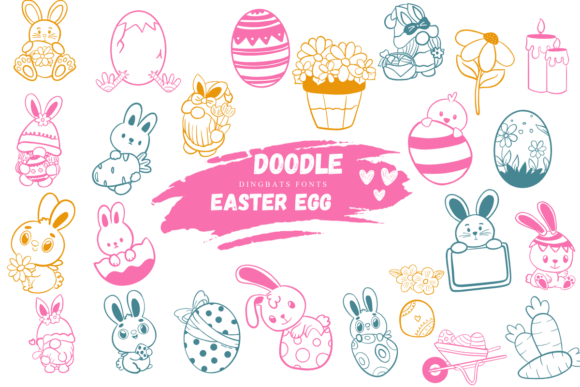
The Perfect Springboard for Your Creative Ideas
Have you ever been brainstorming a new project, surrounded by scraps of paper, paint, and glue, only to be struck by a spark of inspiration? For many creatives, this is the moment when ideas come alive. For designers, this spark often leads to hours of pouring over fonts, searching for the perfect one to bring their vision to life.
Enter the Doodle Easter Egg Font, a delightful dingbats font that’s as playful as it is versatile. This sketched style font is designed to add a whimsical touch to your projects, from wedding invitations to DIY crafts and decorations. With the Doodle Easter Egg Font, you can breathe new life into your designs and make them truly unique.
For designers, this font is a valuable addition to any toolkit. Its versatility and charm make it an ideal choice for a wide range of projects, from logos to social media graphics. Whether you’re a seasoned pro or just starting out, the Doodle Easter Egg Font is sure to inspire your next creative masterpiece.
Doodle Easter Egg Font Key Features
- Unique Characteristics: The Doodle Easter Egg Font features a whimsical, hand-drawn design with Easter egg-inspired elements, making it perfect for holiday-themed projects.
- Character Set: The font includes a wide range of characters, including uppercase and lowercase letters, numbers, and special characters, making it suitable for various types of text.
Doodle Easter Egg Font Review
I recently had the chance to work with the “Doodle Easter Egg Font” and I’m excited to share my honest thoughts on this quirky font. ✨ One thing that really stands out is the unique, playful style that’s perfect for adding a touch of whimsy to your designs. The font’s Easter egg theme is cleverly executed, with colorful, hand-drawn details that are sure to delight.
From a technical standpoint, the font seems to be well-behaved and easy to use. It’s available in a range of weights and styles, making it suitable for a variety of applications.
- ✨ Unique, playful style that’s perfect for adding a touch of whimsy to your designs.
- ✨ Easter egg theme is cleverly executed with colorful, hand-drawn details.
- ✨ Well-behaved and easy to use.
- ⚠️ Limited to a specific niche or theme (Easter eggs).
- ⚠️ May not be suitable for serious or professional applications.
Overall, I think the “Doodle Easter Egg Font” is a fun and creative addition to any designer’s toolkit. While it may not be suitable for every project, it’s perfect for those looking to add a playful touch to their designs. With a little creativity, this font is sure to bring a smile to your clients’ faces.
Use the Doodle Easter Egg Font to create unique and playful designs.
The Doodle Easter Egg Font is perfect for adding a touch of whimsy to your presentations and documents.
Some popular use cases for the Doodle Easter Egg Font include:
- Spring and Easter-themed designs.
- Playful logos and branding.
Remember to experiment with different font sizes, colors, and combinations to get the most out of the Doodle Easter Egg Font.